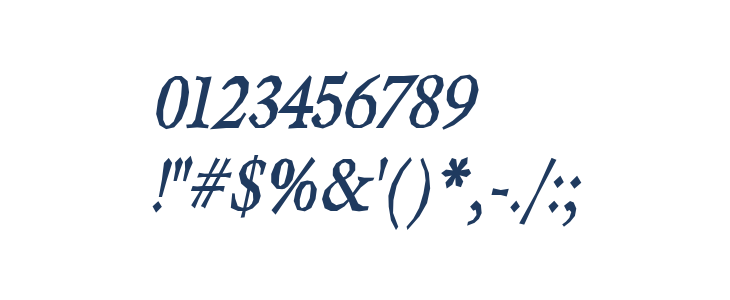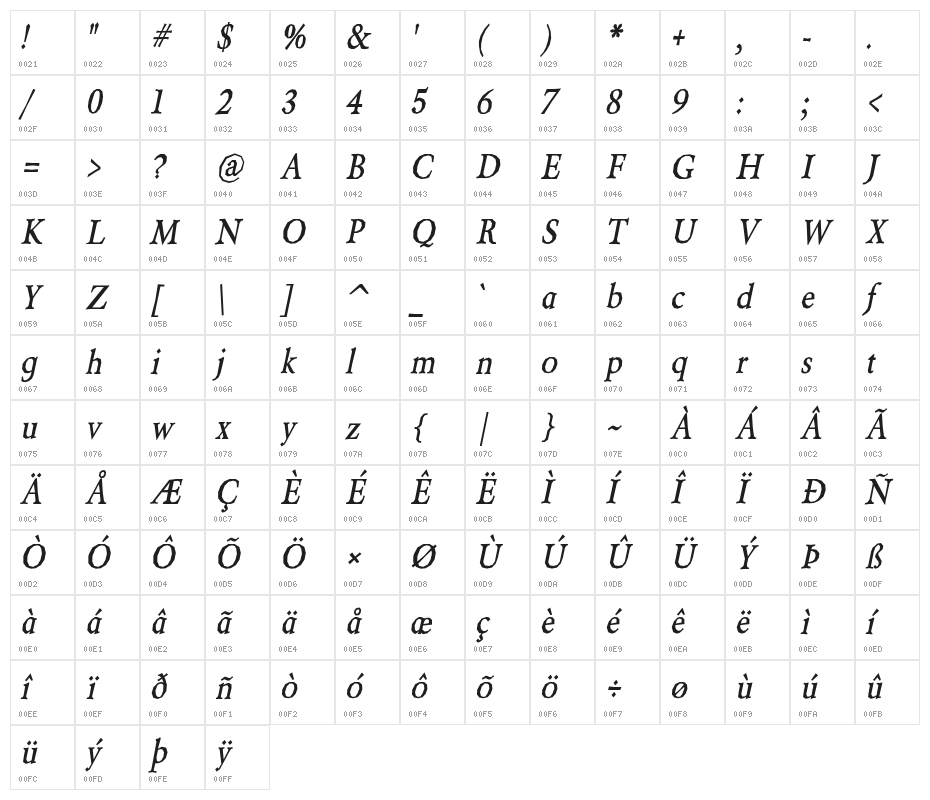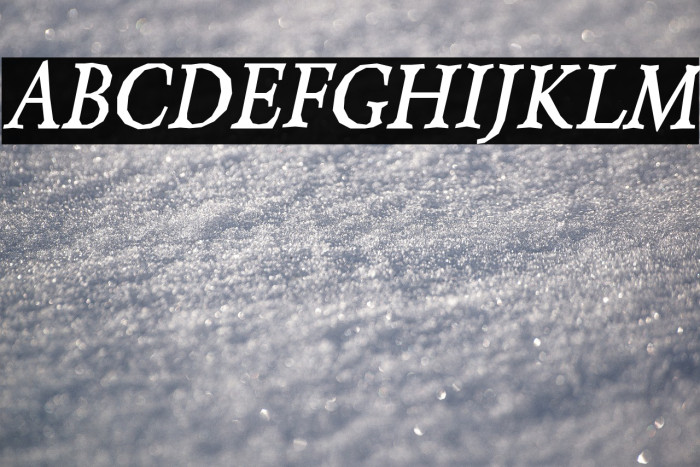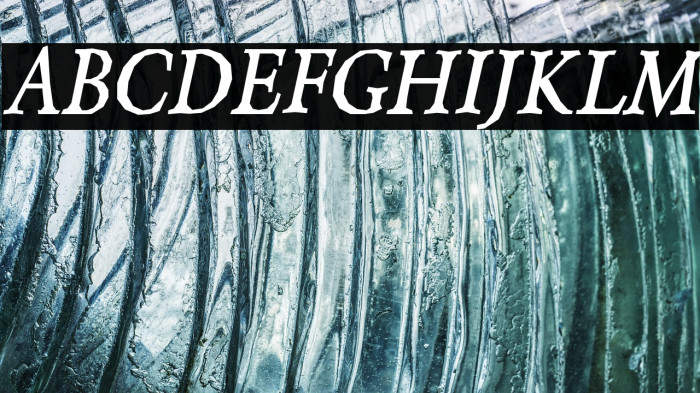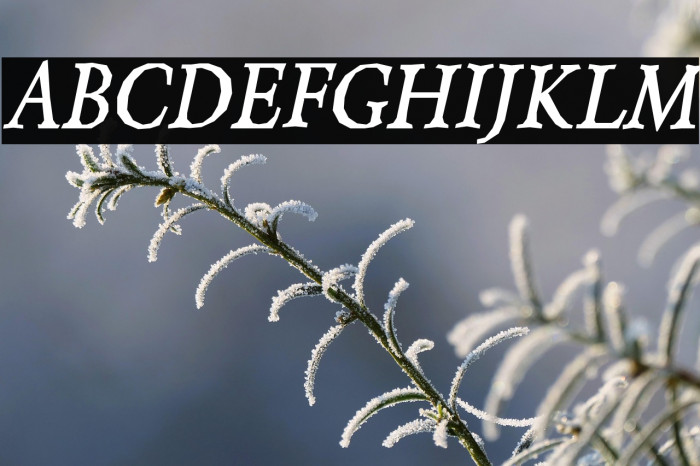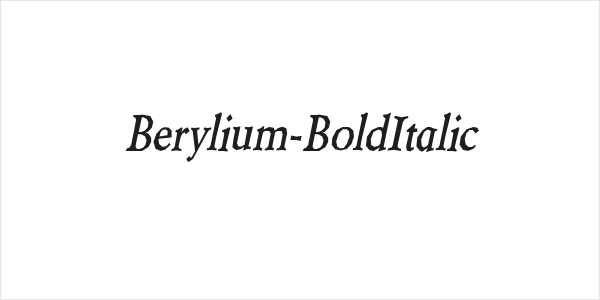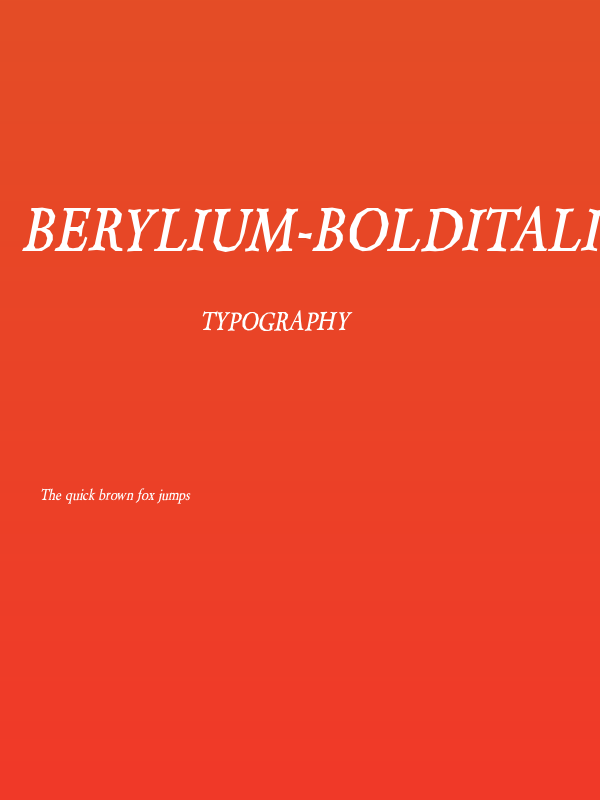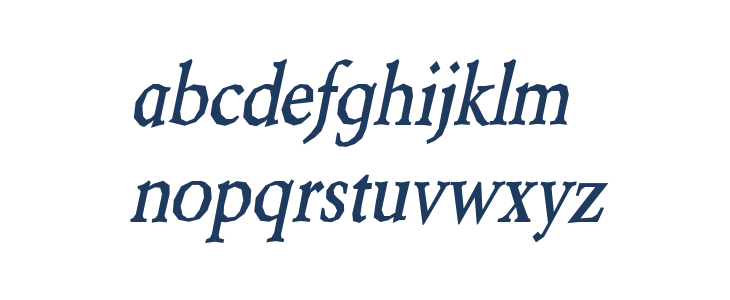
Berylium-BoldItalic Font
Berylium-BoldItalic Description
This font exhibits a bold and italicized style, characterized by its dynamic and slightly slanted letterforms. The serifs are pronounced, adding a touch of elegance and sophistication. The uppercase letters are strong and commanding, while the lowercase letters maintain a consistent flow and readability. Numbers are clear and distinct, ensuring legibility in various contexts. The special characters are well-integrated, maintaining the overall aesthetic of the font. This typeface is versatile, suitable for both formal and creative applications.
| Use Case | Headlines, Logos, Editorial design |
| Proposed Projects | Ideal for branding, editorial design, book covers, and high-impact headlines. |